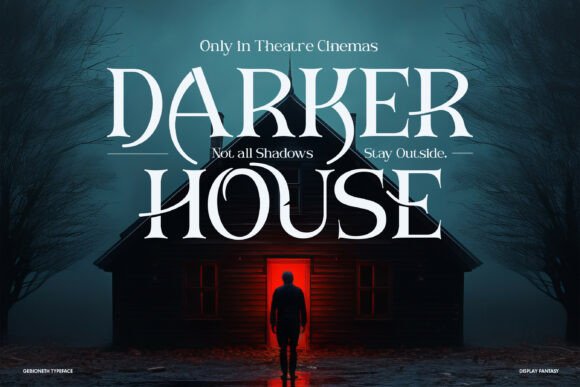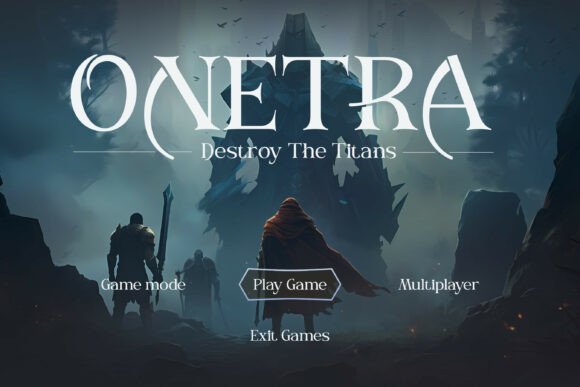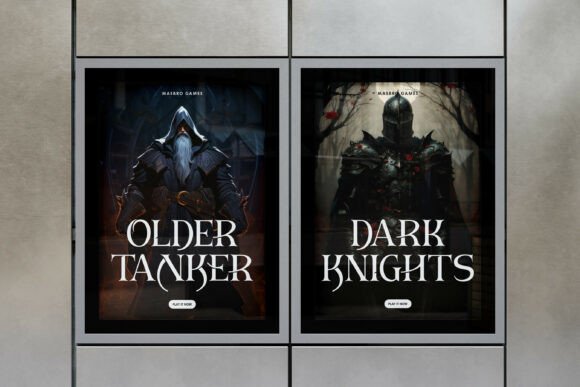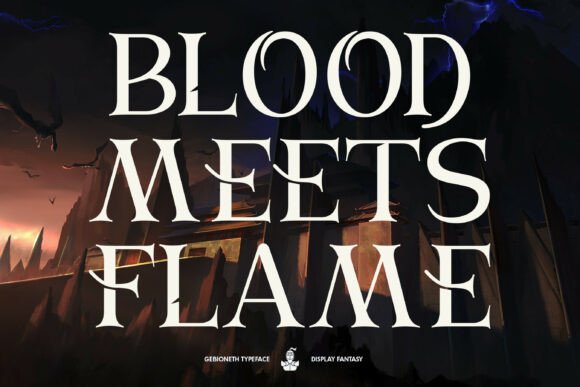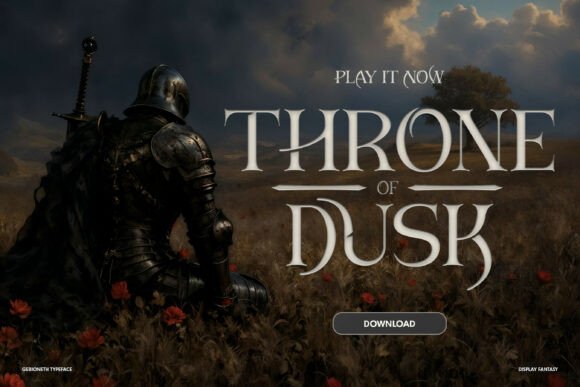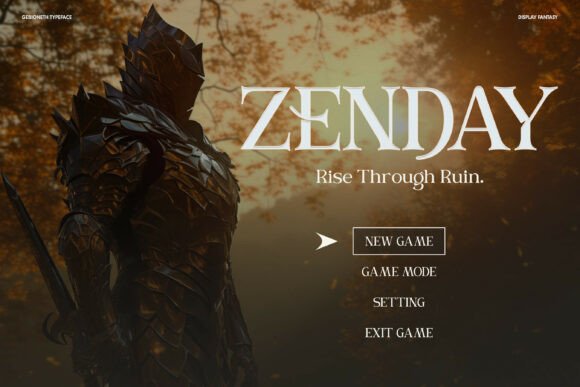
Introduction to Gebioneth Font
Have you ever stumbled upon a game title or a movie poster that instantly captivated your imagination and left you yearning for more? For many creatives, that magical moment is what drives them to push the boundaries of their art. For designers, finding the perfect font can be a game-changer, transporting your audience to a world of wonder and awe. This is where the Gebioneth Font comes in – a high-quality, free download that’s about to revolutionize your creative projects.
With its bold and powerful design, Gebioneth Font is the perfect addition to any project that demands a heroic and legendary feel. Whether you’re working on a fantasy novel, a game title, or a movie poster, this font is sure to make your words look timeless and unforgettable. Plus, its transparent background makes it a versatile design resource that can be easily integrated into any project.
Key Features of Gebioneth Font
- Unique, modern design aesthetic with a blend of geometric and organic elements, ideal for creating visually striking and engaging content.
- Designed to be highly legible and versatile, suitable for use in a variety of contexts, from digital displays to print materials.
Honest Review: Gebioneth Font
As a designer, I’m always on the lookout for high-quality design resources that can elevate my creative projects. The Gebioneth Font is one such find that caught my attention. Upon closer inspection, I found it to be a well-crafted, free download that’s perfect for those who want to add a touch of sophistication to their designs.
- ✨ High-quality typography
However, I did notice a few limitations. The font family is relatively small, and it may not be as extensive as some other font families in the market. Additionally, the font may not be suitable for very large or complex projects.
Overall, I’d say the Gebioneth Font is a solid addition to any designer’s toolkit. While it may have some limitations, its high-quality typography and free download make it a great resource for creative projects.
Tips for Getting the Most Out of Gebioneth Font
Use Gebioneth Font in combination with other design elements, such as images or graphics, to create visually appealing designs. Experiment with different font sizes and styles to add emphasis to your text. The Gebioneth Font is also a great choice for creating titles or headings for your design project.
The Gebioneth Font is a versatile design resource that can be used in a variety of creative projects, such as infographics, brochures, or social media graphics. Its high quality and transparent background make it an ideal choice for designers looking for a professional and visually appealing font.